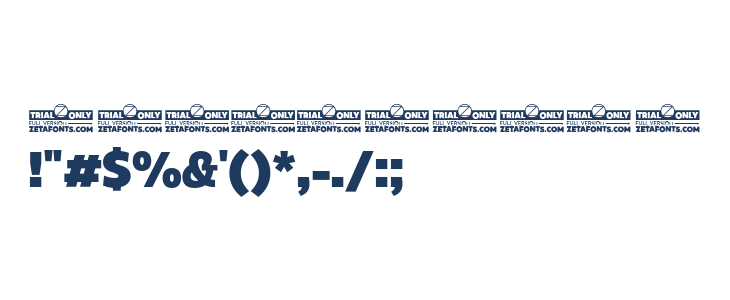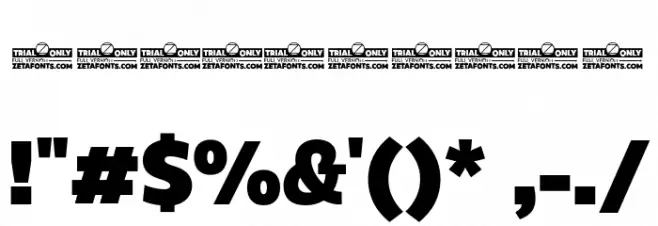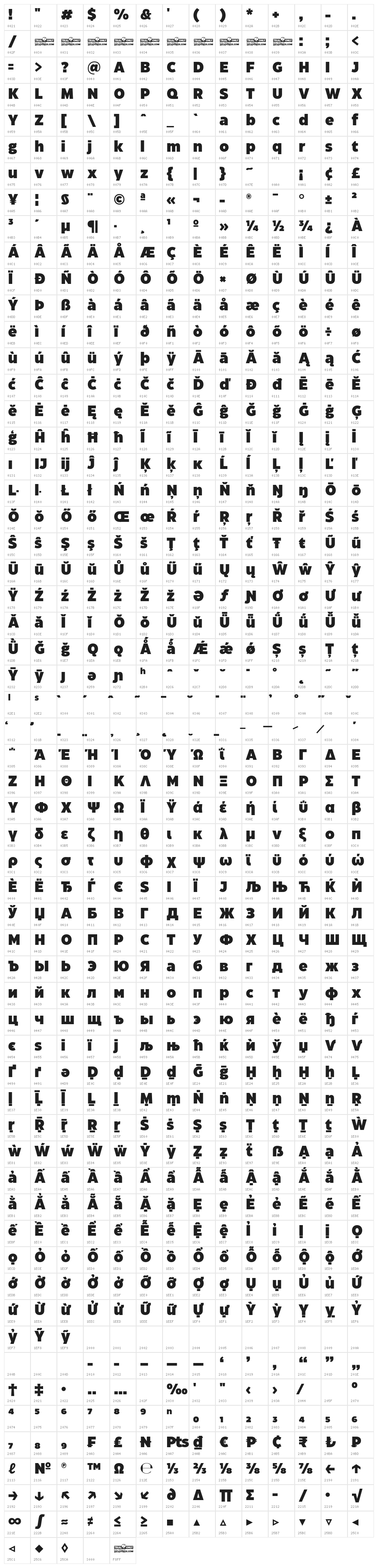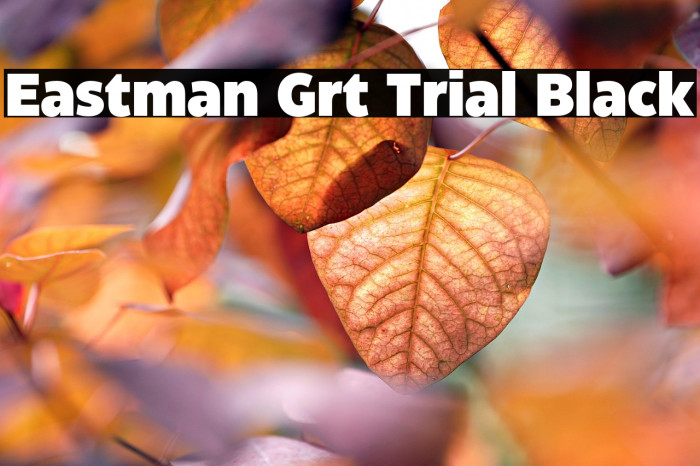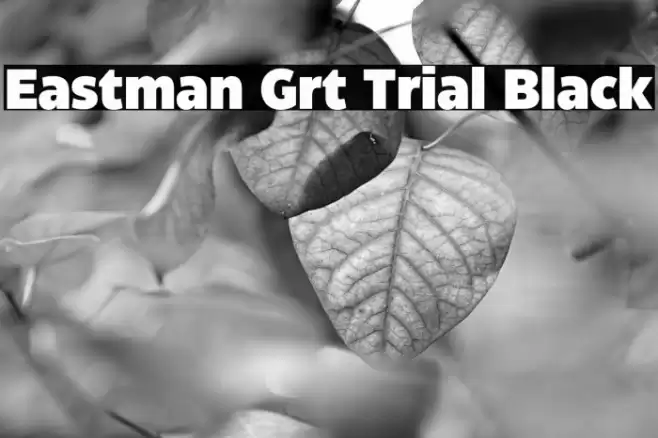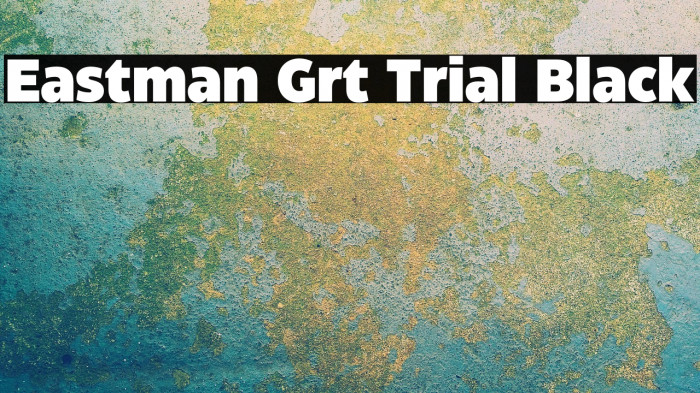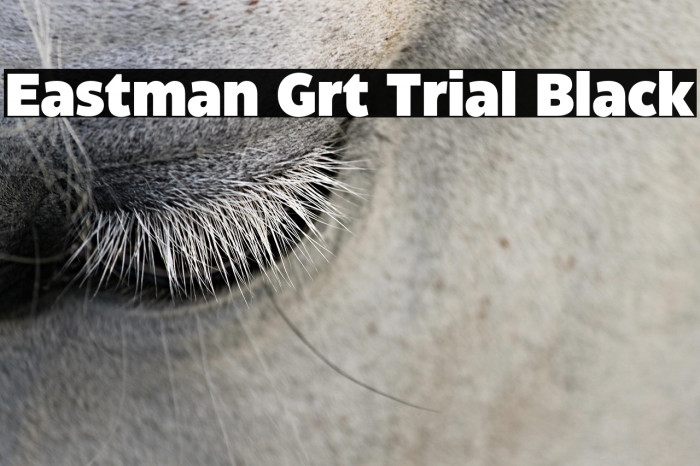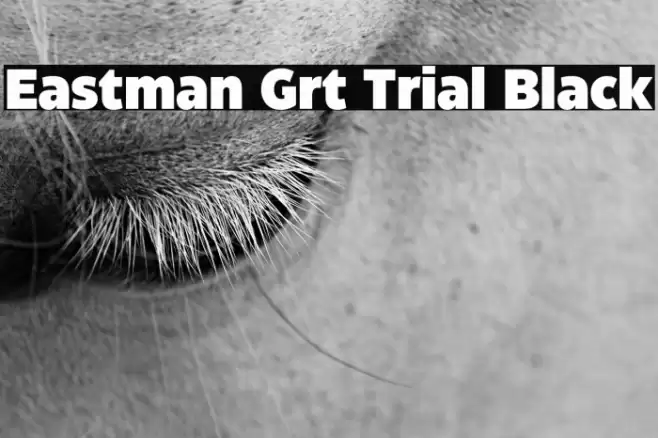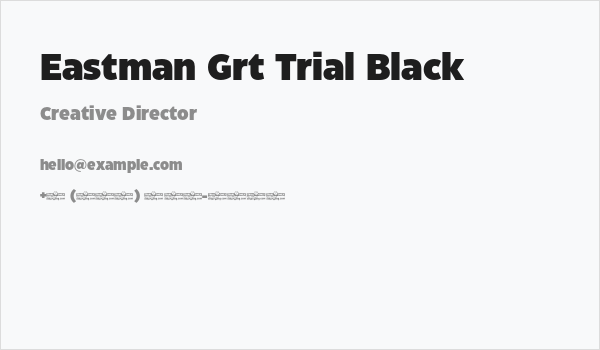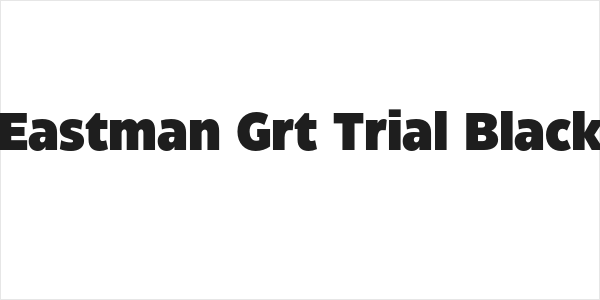
Eastman Grt Trial Black Font
Eastman Grt Trial Black Description
This font features a bold and impactful design with thick, uniform strokes that convey strength and modernity. The uppercase and lowercase letters are well-proportioned, maintaining a consistent weight throughout. The characters are designed with a slight geometric influence, giving them a clean and structured appearance. The numbers and special characters follow the same bold style, ensuring a cohesive look across all text elements. This font is highly legible, making it suitable for both digital and print media.
| Proposed Projects | Ideal for branding, advertising, headlines, and poster design due to its strong visual impact. |